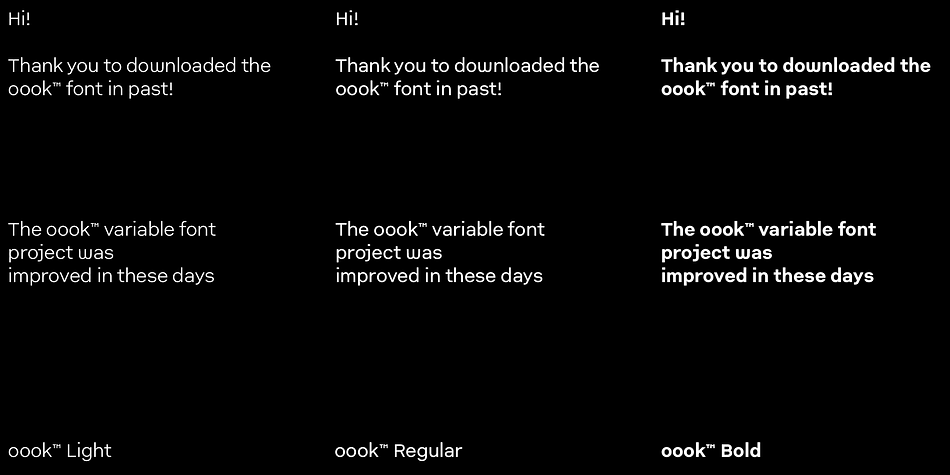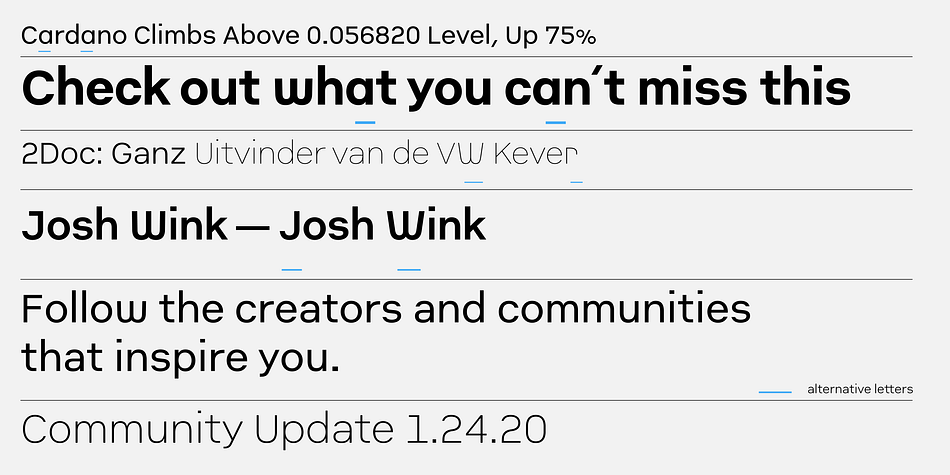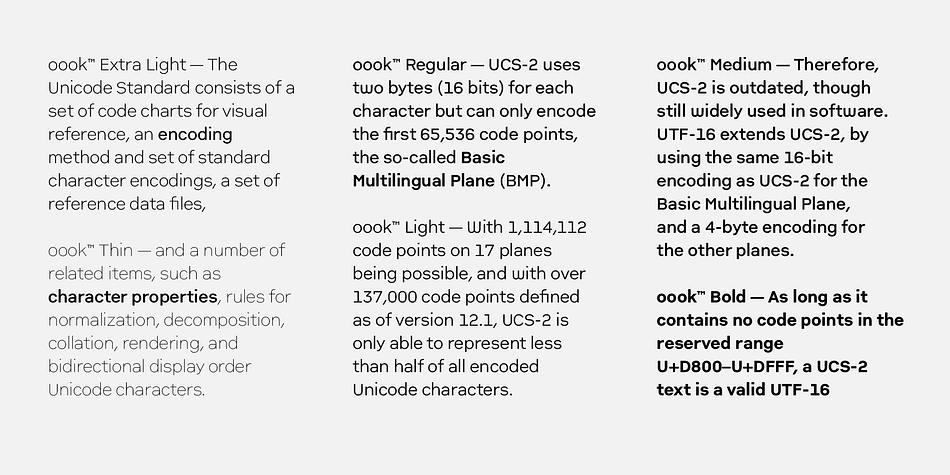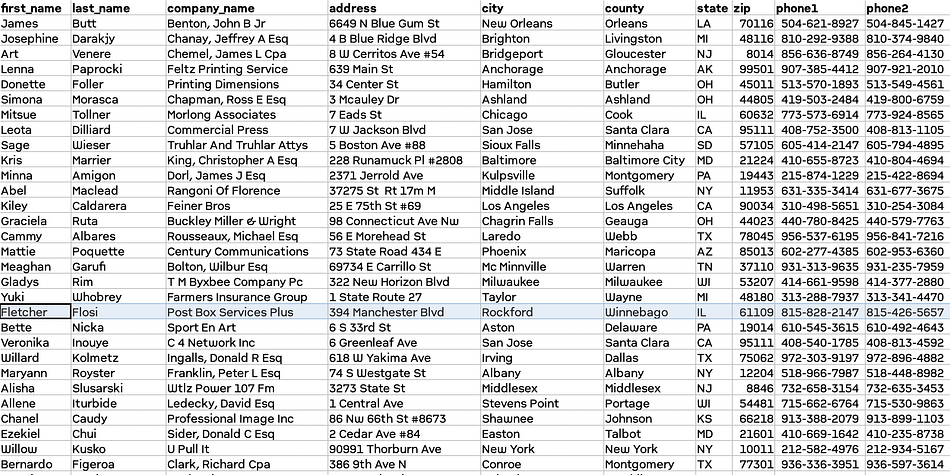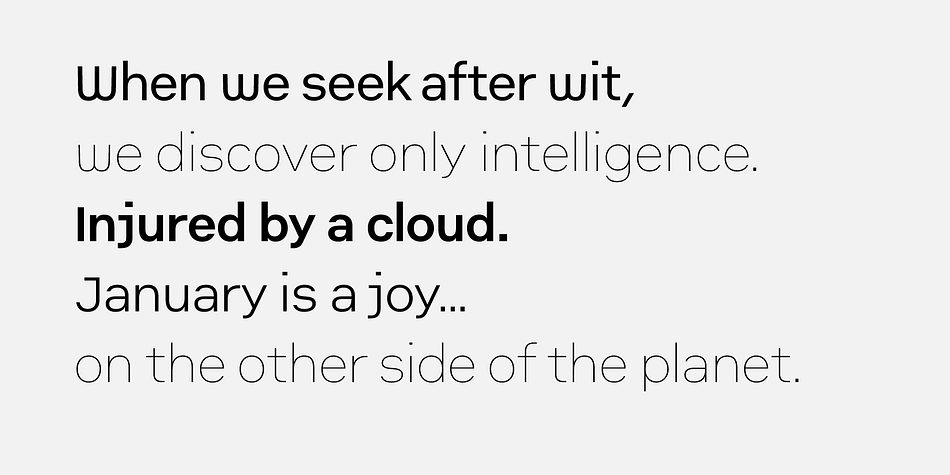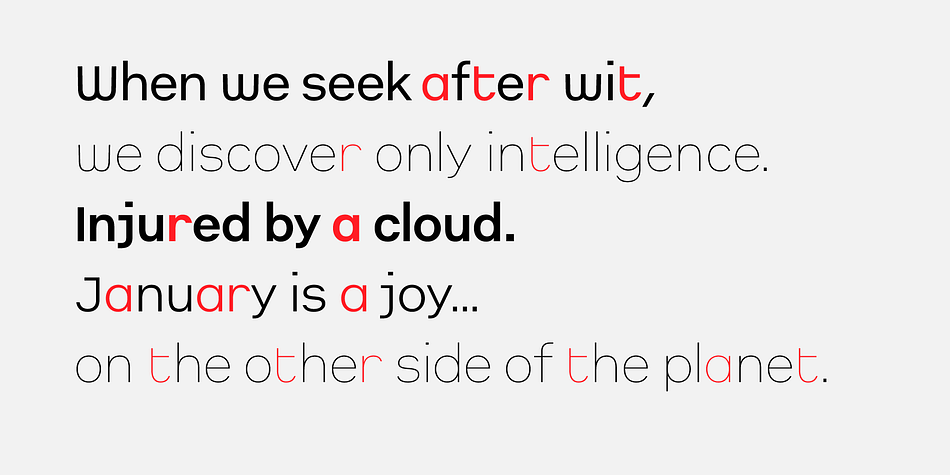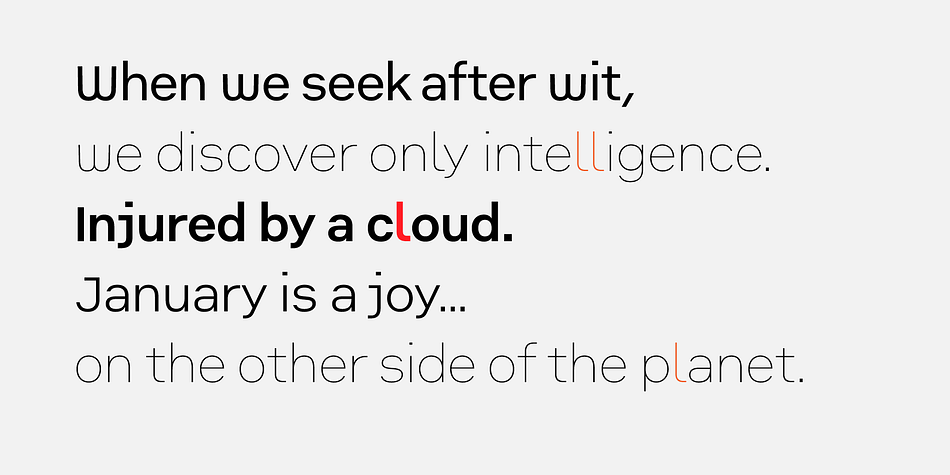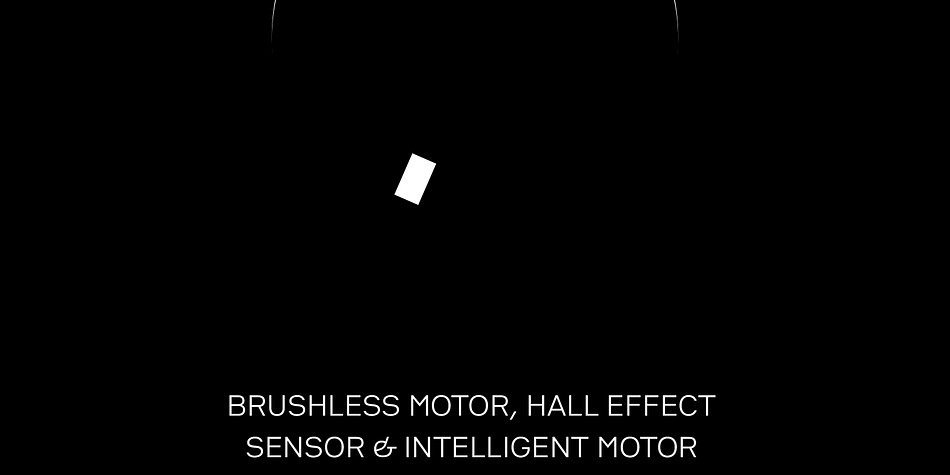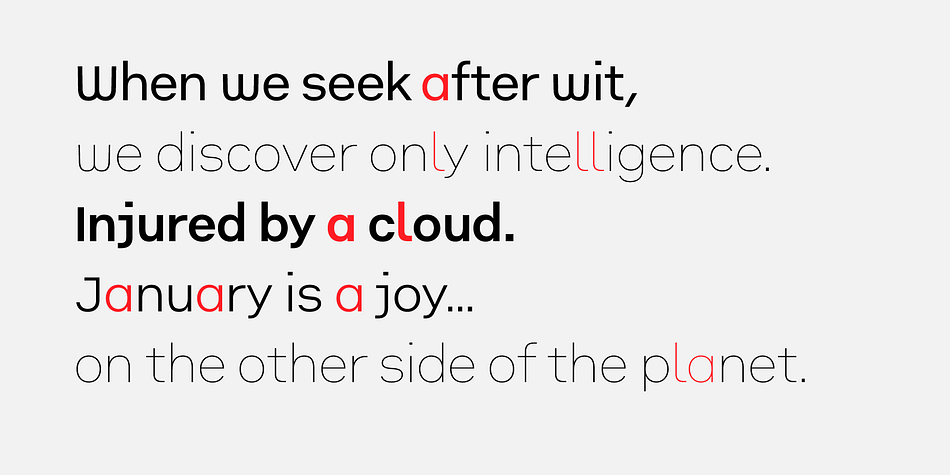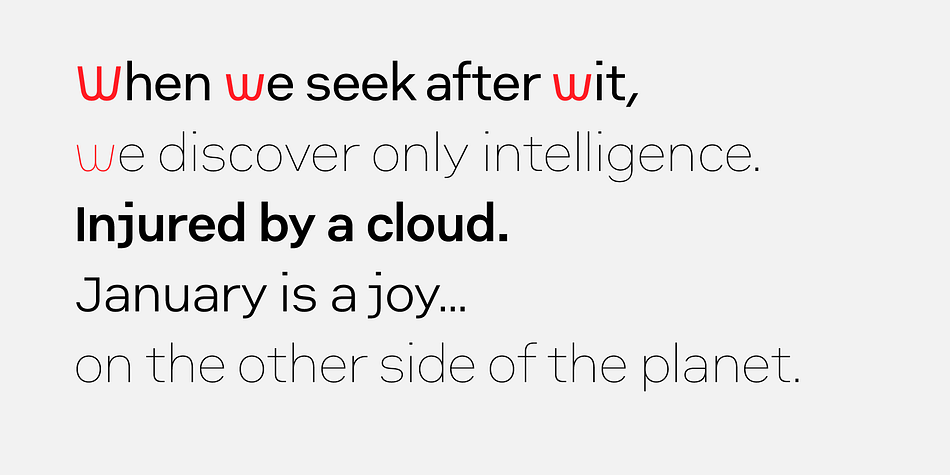
oook
Designed by Fabrizio Schiavi, oook is a sans serif font family. This typeface has nine styles and was published by FSD.
oook™ is the remake of the successful CP Company designed in 2001
Technology is changed, requirements are changed, everything is slowly changed.
Ideal for very small texts: uppercases and lowercase heights ratio is designed to improve readability at very very small texts. A feature that can’t be ignored in the smartphone era.
Ideal for spreadsheets: With its wide eyes on letters and numbers you’ll be surprised by the improved readability of Excel or LibreOffice spreadsheets.